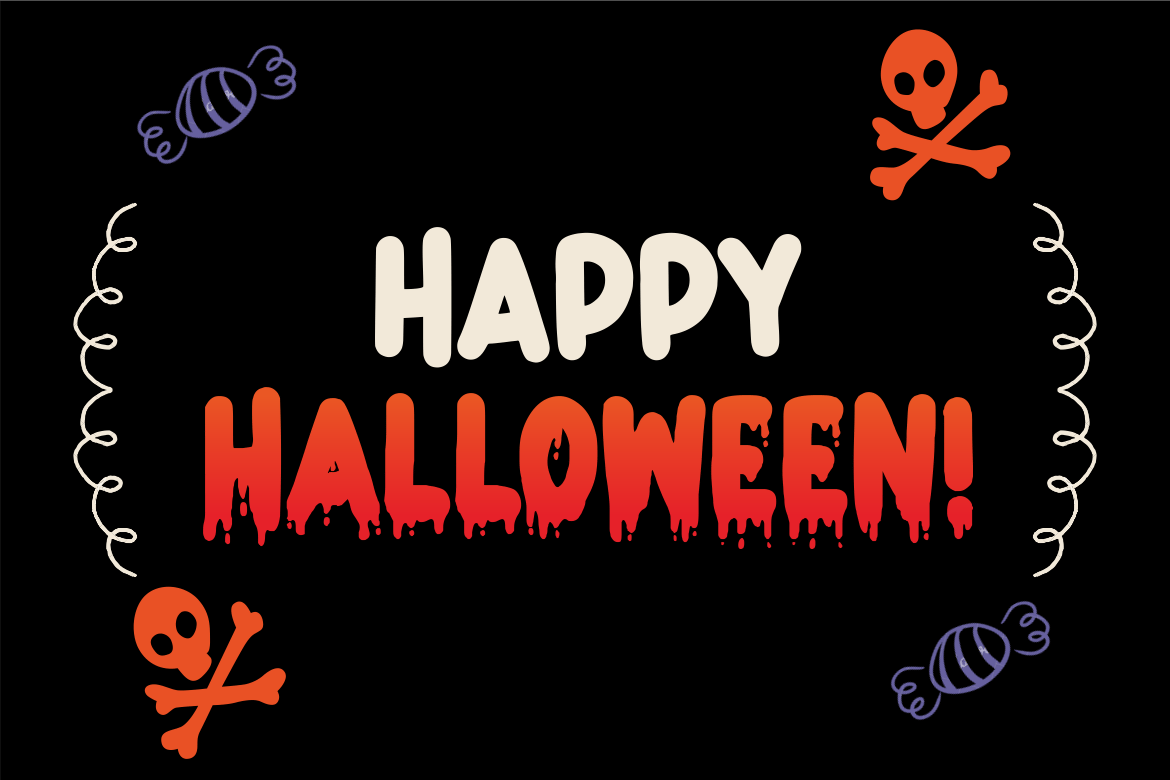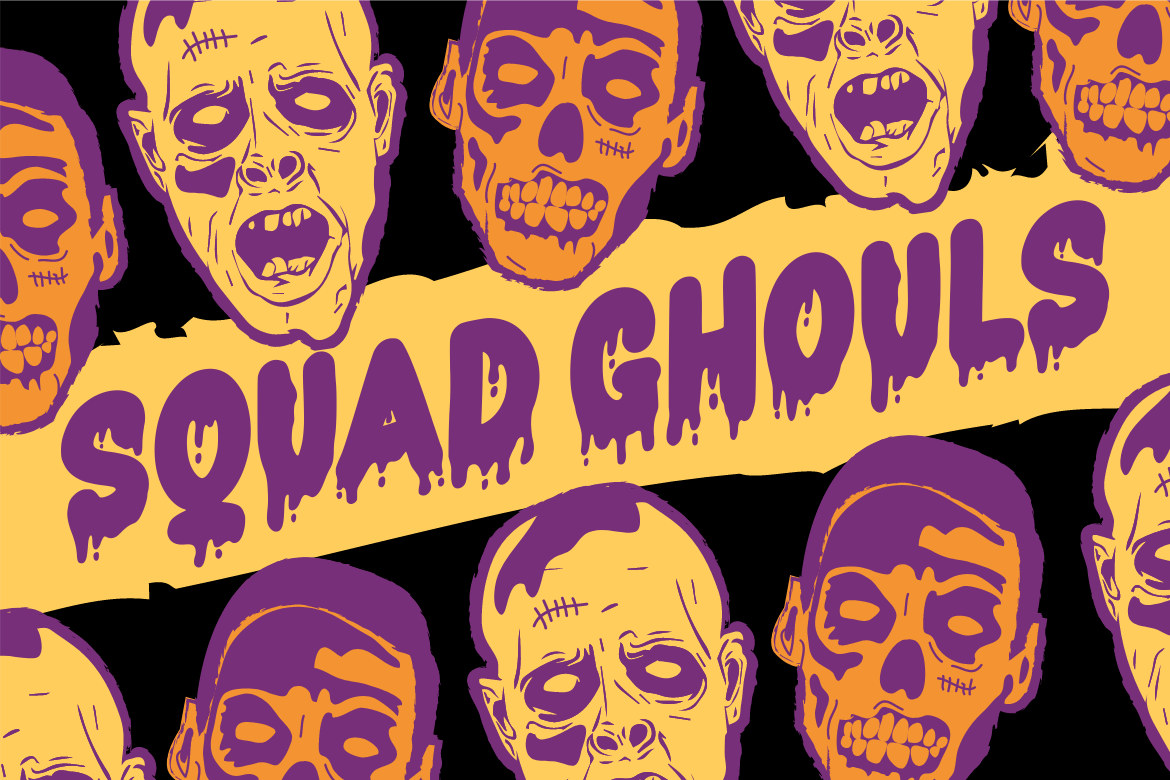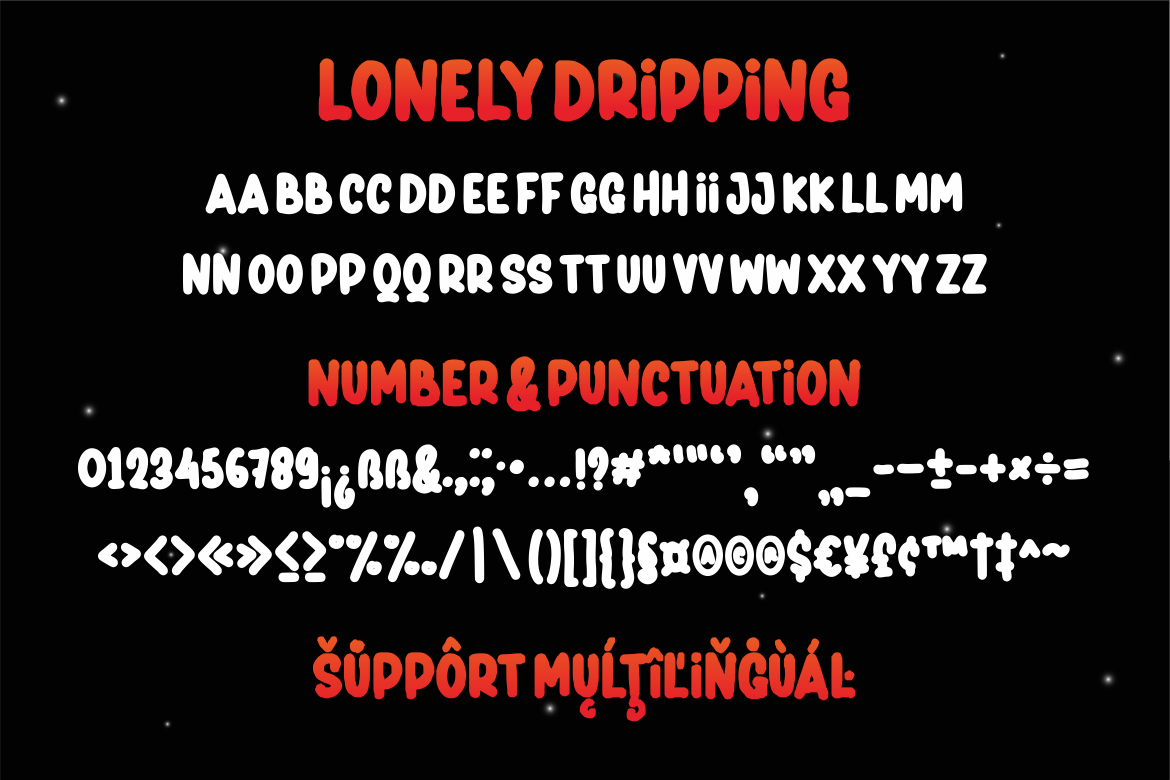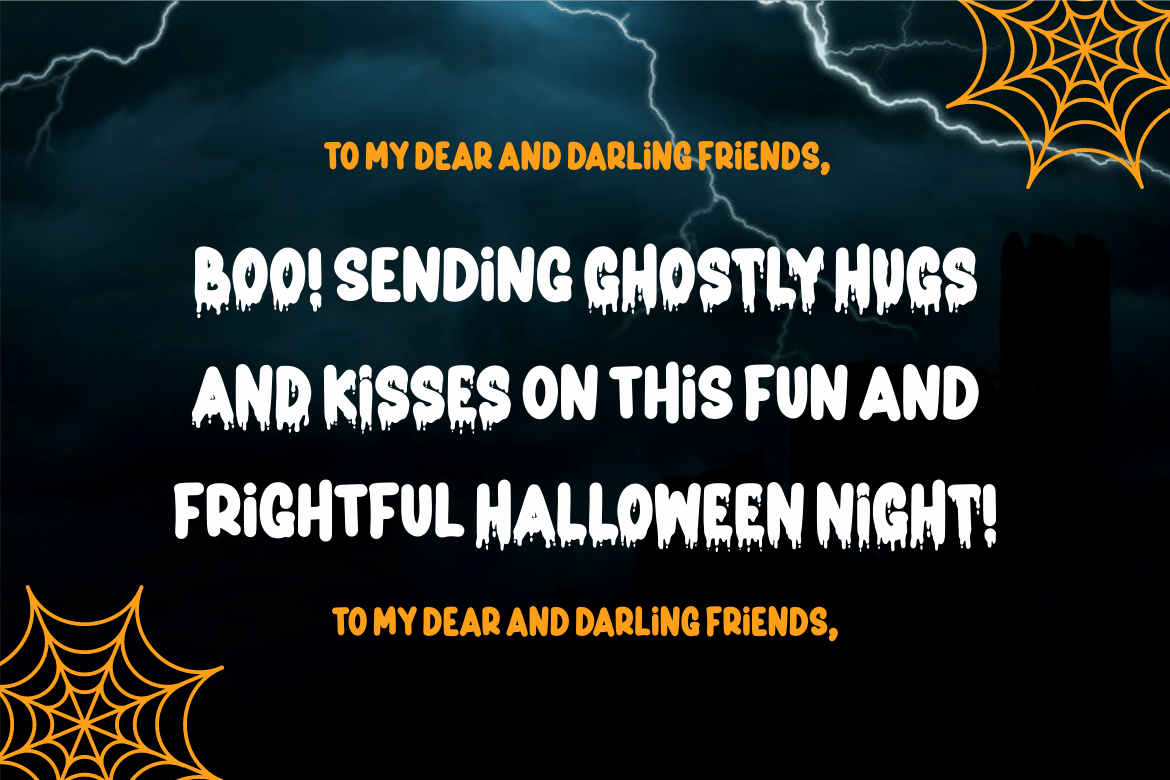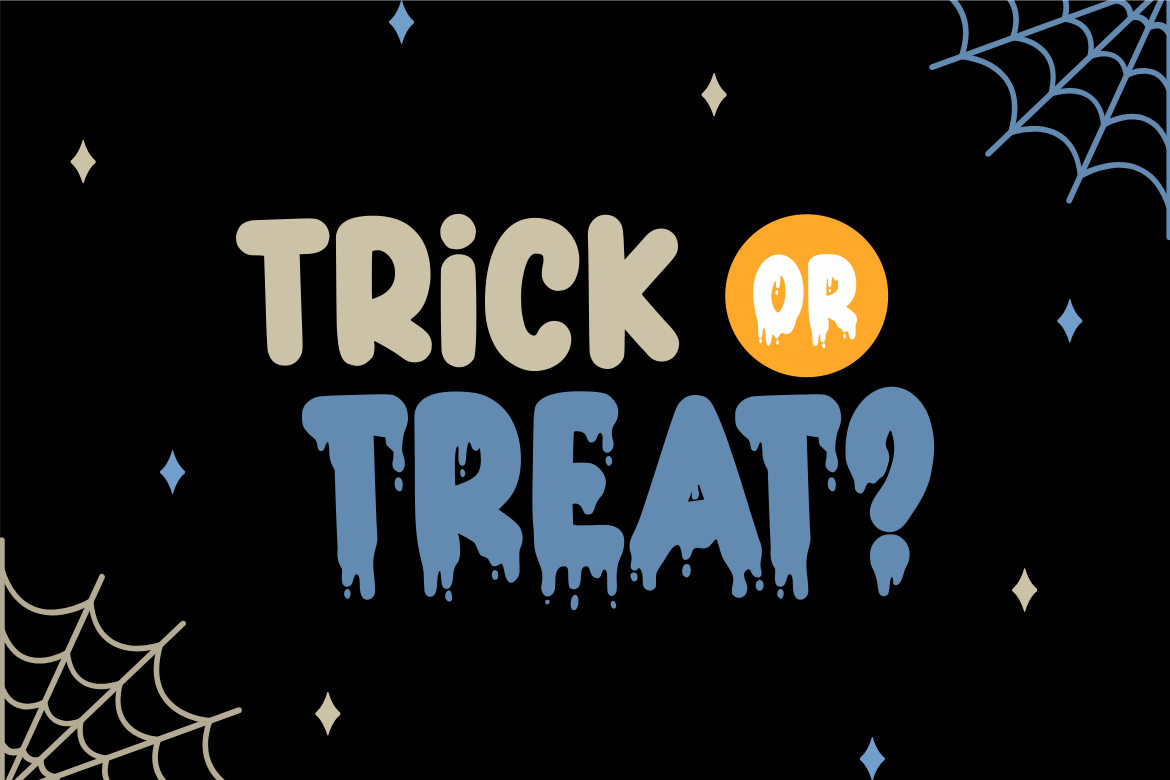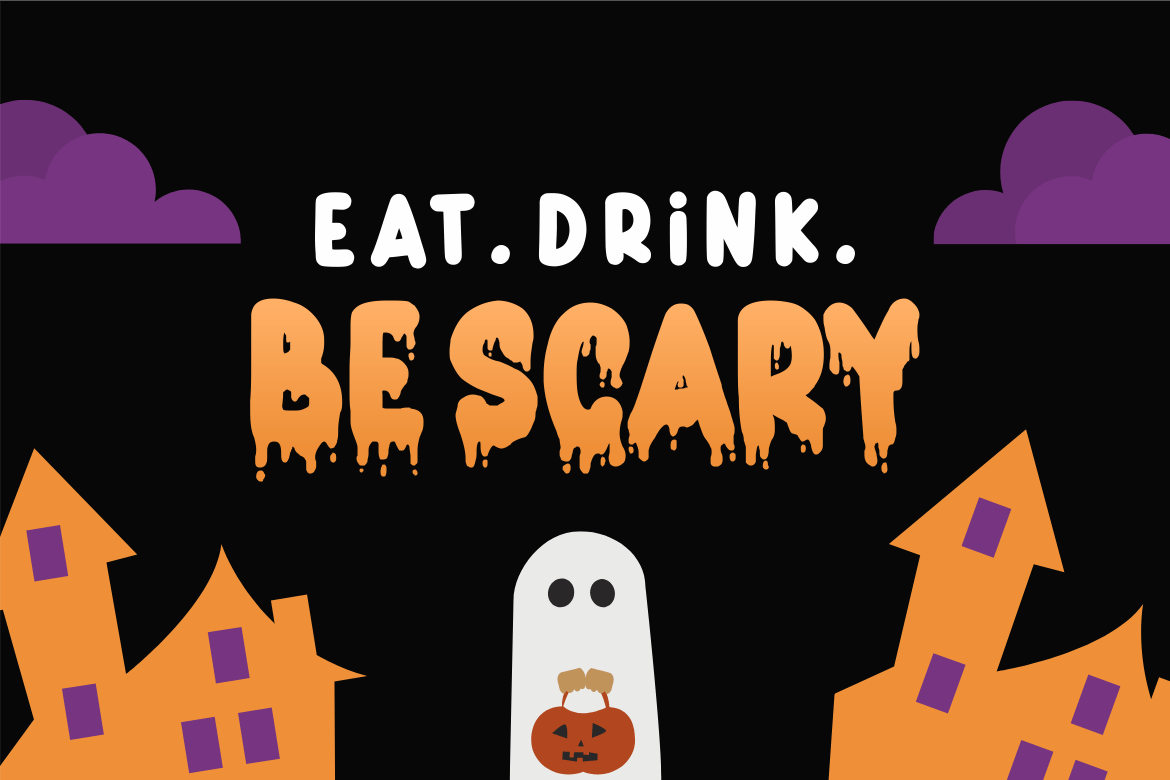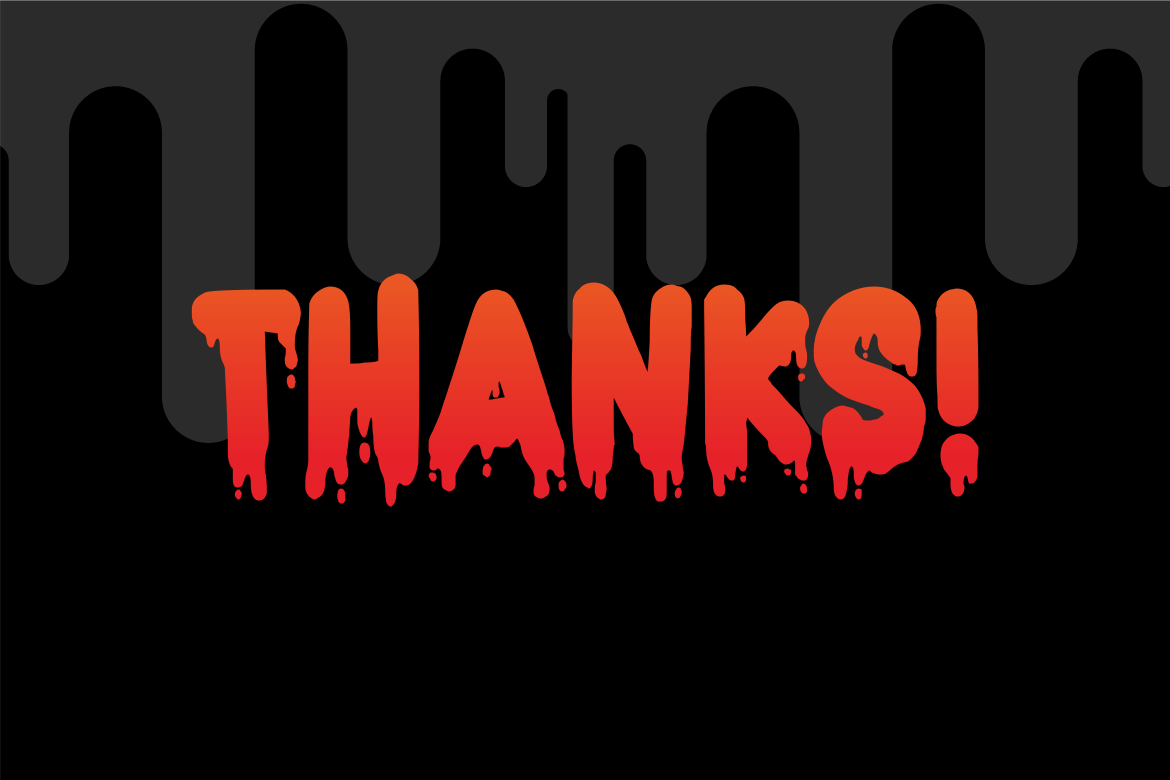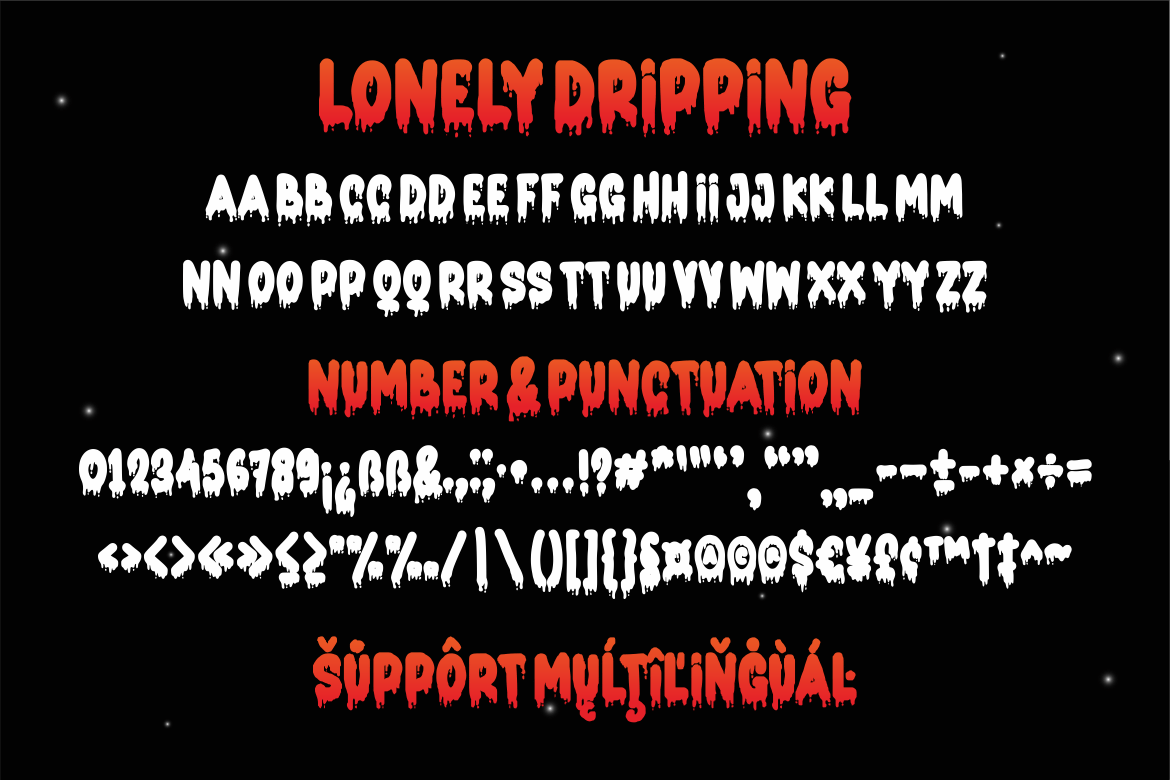
Lonely Dripping Halloween Display Font
Introducing, Lonely Dripping is a halloween display font duo suitable for your design project needs, such as; halloween theme, social media posts, your quotes, overlays on images, posters, print needs, website banners, and more.
- A set of uppercase and lowercase glyphs
- Number, symbol, and punctuation